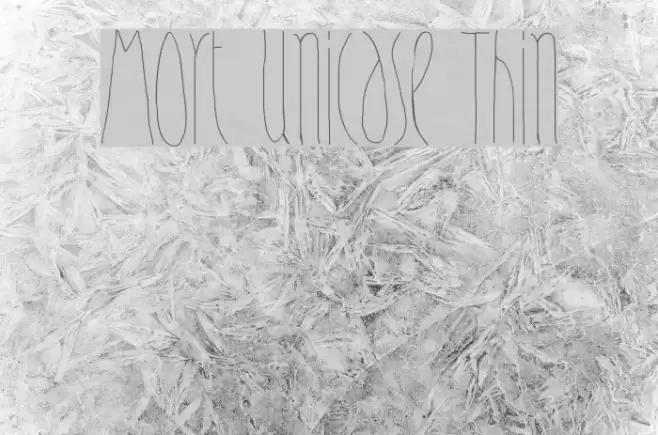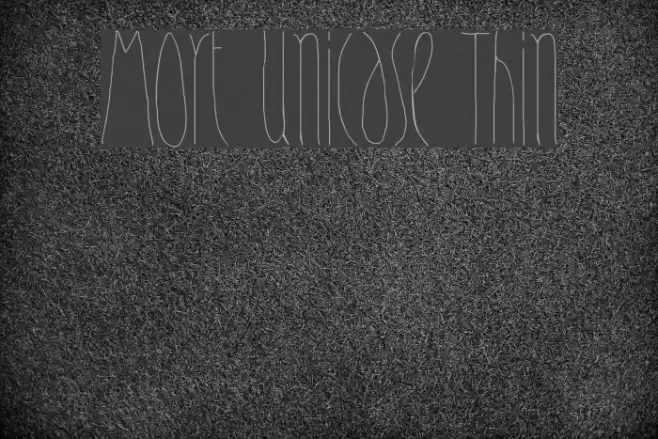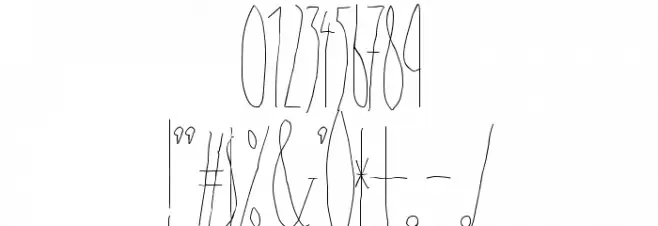
Mort Unicase Thin Font
Mort Unicase Thin Description
This font features a unique, ultra-thin design with a modern and artistic flair. The characters are elongated and slender, giving a sense of elegance and sophistication. The uppercase and lowercase letters share a similar height, creating a unicase effect that is both distinctive and stylish. The numerals and special characters maintain the same thin and elongated style, ensuring consistency across all glyphs. This font's minimalistic approach makes it ideal for projects that require a contemporary and sleek aesthetic.
A modern, ultra-thin unicase font with elongated, elegant characters from Uncategorized fonts.
- Proposed Projects: Ideal for fashion magazines, luxury branding, minimalist posters, and modern art projects.